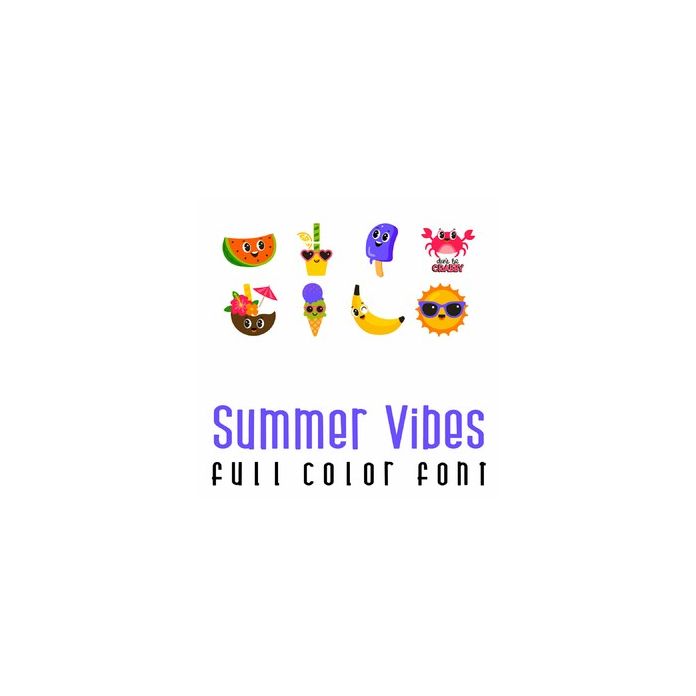
This fun full color doodlebat font features the perfect kawaii style summer imagery. Perfect for cards, crafts, gifts, decor, scrap book pages, planner stickers and more!